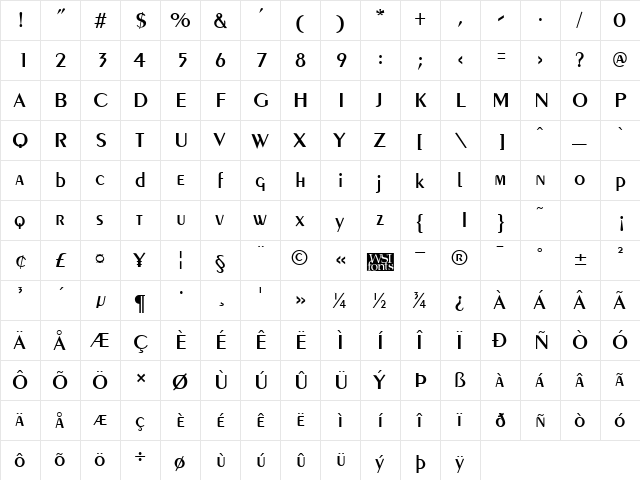
Penyae Regular
Design Context for Penyae Typeface
Penyae takes a measured approach to typography — its balanced proportions and neutral character make it a reliable workhorse for both digital and print work.